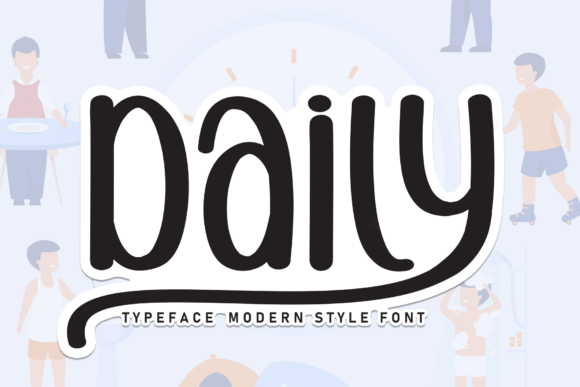
Introducing Daily Font: The Friendly and Lovely Font for Your Everyday Projects
Are you tired of using the same old fonts for your daily projects? Look no further! Daily Font is here to bring a friendly and lovely touch to your designs. This beautiful font is perfect for anyone who loves to create and express themselves through art, crafting, and writing. Whether you’re a designer, crafter, or simply a DIY enthusiast, Daily Font is sure to become your go-to font for all your projects.
What Makes Daily Font So Special?
Daily Font is designed with a friendly and lovely style in mind. Its unique and playful characters are sure to add a personal touch to any project. The font is highly versatile and can be used for a wide range of applications, from diary planners and journals to posters, blogs, and social media posts. Its clean and elegant design makes it perfect for both digital and print projects.
Perfect for Daily Use
As its name suggests, Daily Font is designed to be used every day. Whether you’re creating a daily planner, journal, or to-do list, this font is sure to bring a smile to your face. Its friendly and approachable style makes it perfect for projects that require a personal touch. You can use it to create:
- Diary planners and journals
- To-do lists and daily schedules
- Notes and reminders
- Personalized gifts and decorations
Ideal for Special Occasions
Daily Font is not just limited to daily use. It’s also perfect for special occasions and events, such as:
- Back to school projects
- Weddings and anniversaries
- Parties and celebrations
- Festivals and holidays
With Daily Font, the design possibilities are endless. You can use it to create:
- Blogs and social media posts
- Clothing and accessories
- Child-related designs and nursery decor
Why Choose Daily Font?
There are many reasons why you should choose Daily Font for your projects. Here are just a few:
- Unique and playful design
- Highly versatile and adaptable
- Perfect for daily use and special occasions
- Elegant and clean design
Whether you’re a designer, crafter, or DIY enthusiast, Daily Font is the perfect addition to your creative toolkit. Its friendly and approachable style makes it perfect for any project that requires a personal touch. So go ahead, get creative, and bring your projects to life with Daily Font!